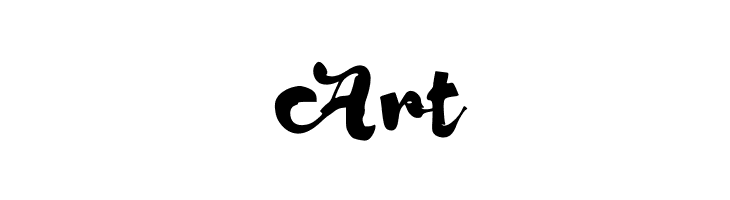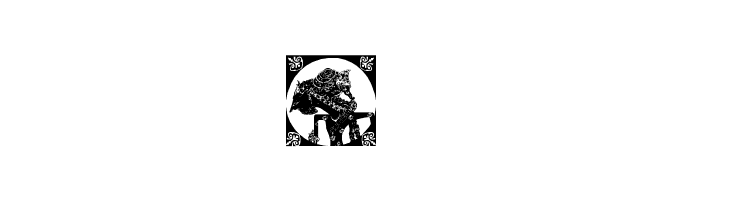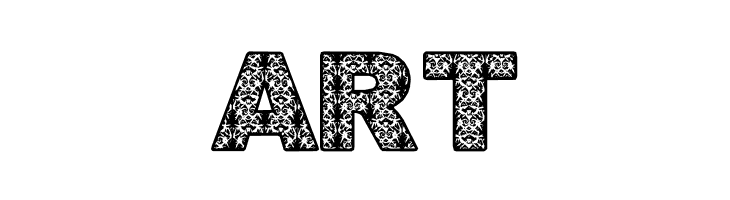
( Asia Culture - Sutrisno Budiharto - www.sutrisnobudiharto.net )
A bold, decorative font with intricate patterns filling each character.
A flowing, elegant cursive font with decorative flourishes.
A bold, artistic script font with a handcrafted, brush-like style.
( Fonts by Andi Moz )
A decorative font with intricate patterns and bold outlines.